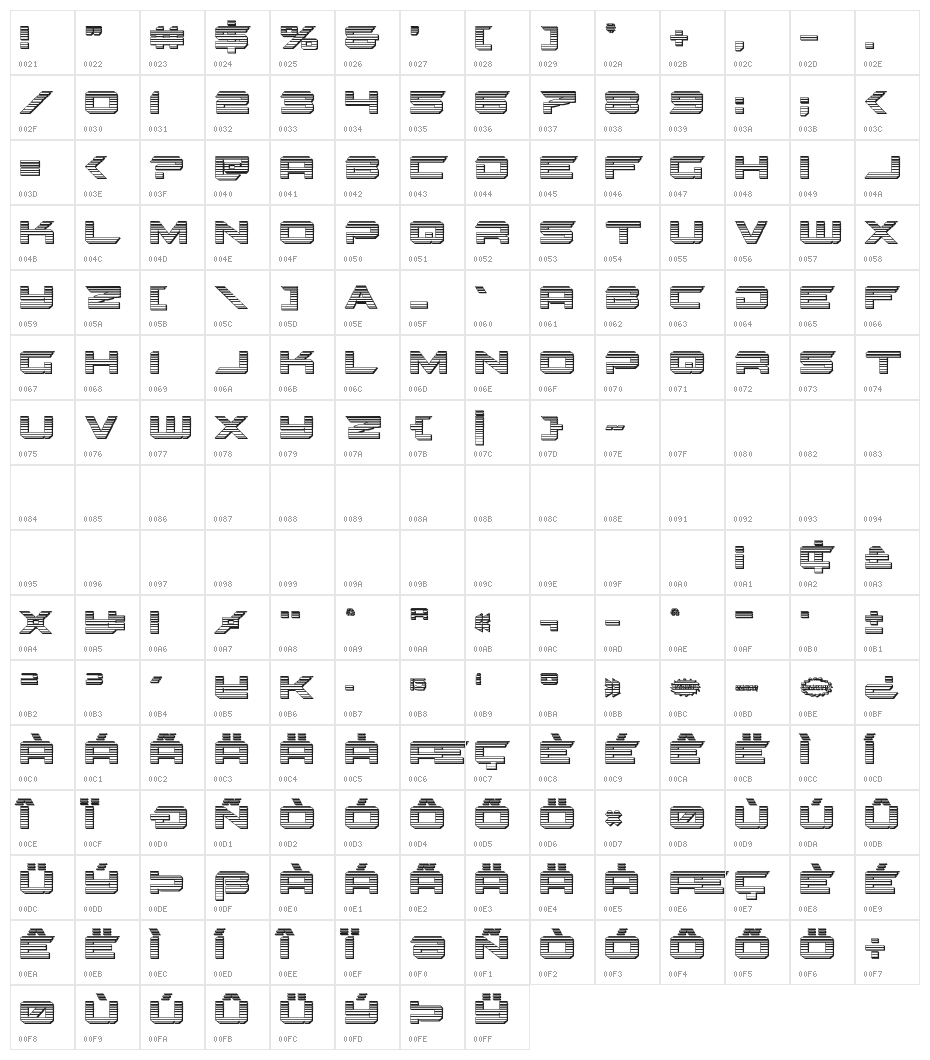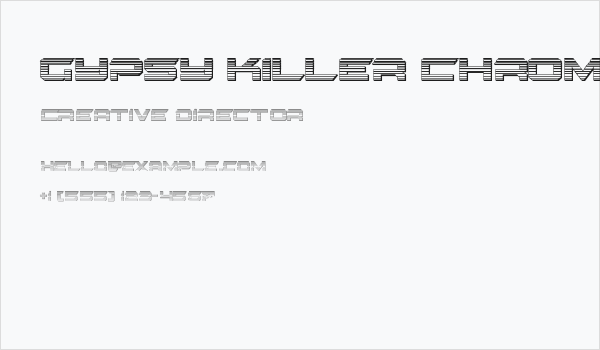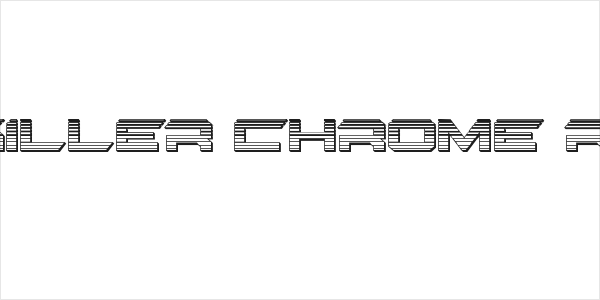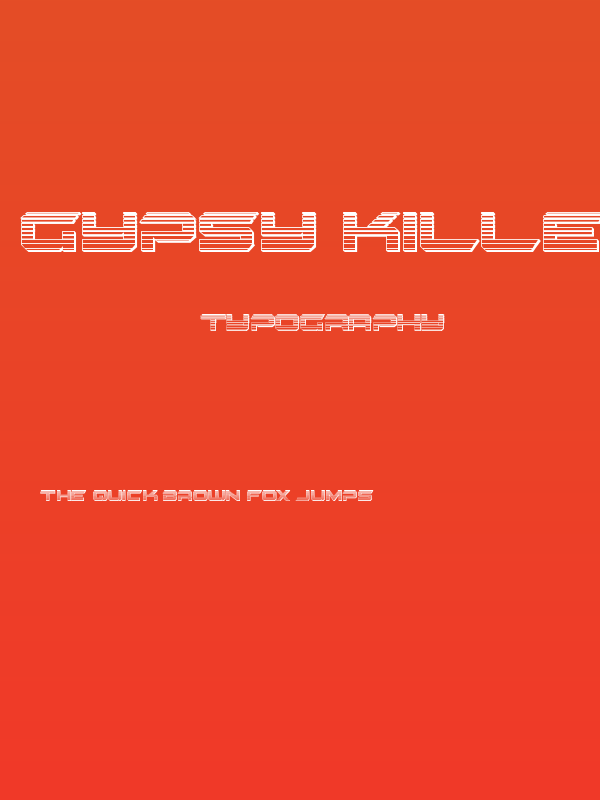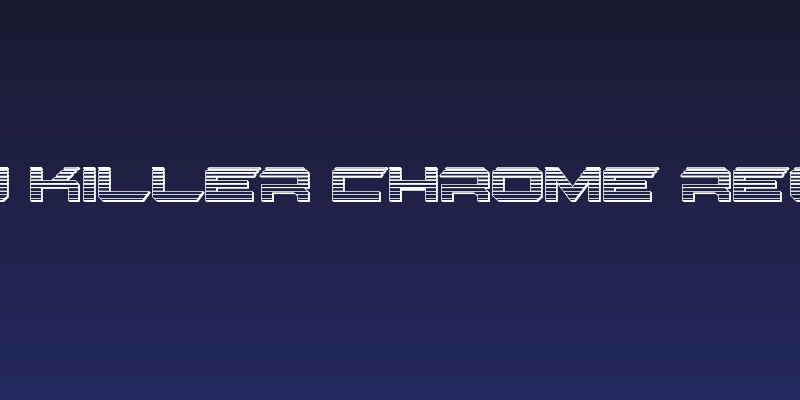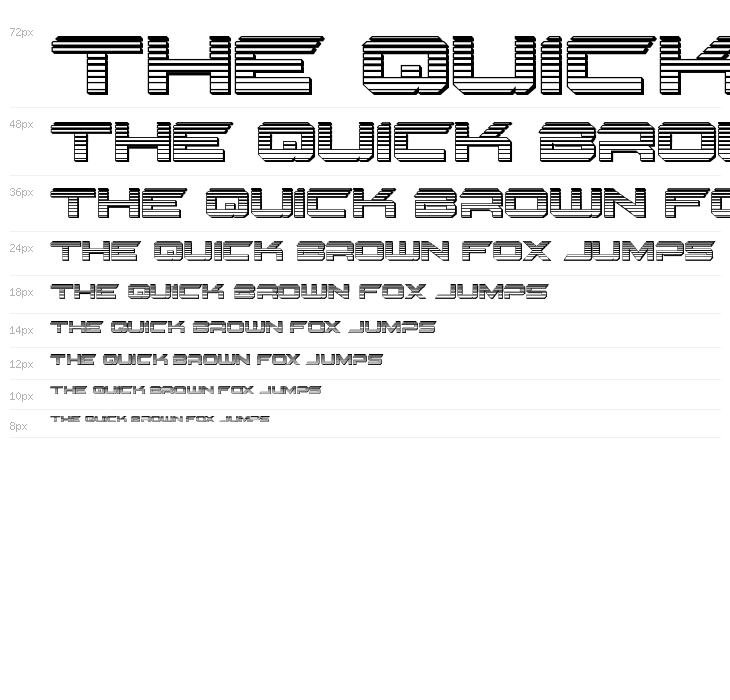
Gypsy Killer Chrome Regular Font
Gypsy Killer Chrome Regular Description
This font features a bold, futuristic design with a distinct chrome-like appearance. Each character is constructed with multiple horizontal lines that create a layered, three-dimensional effect. The geometric structure is consistent across all letters and numbers, providing a cohesive look. The uppercase and lowercase letters share a similar style, maintaining uniformity. The font's unique aesthetic makes it stand out, with sharp angles and a mechanical feel that suggests a modern, industrial theme. The special characters are designed to match the overall style, ensuring they integrate seamlessly with the rest of the font.
Overall StyleFuturistic, Industrial
Proposed ProjectsIdeal for sci-fi themed projects, video game titles, tech branding, and futuristic posters.